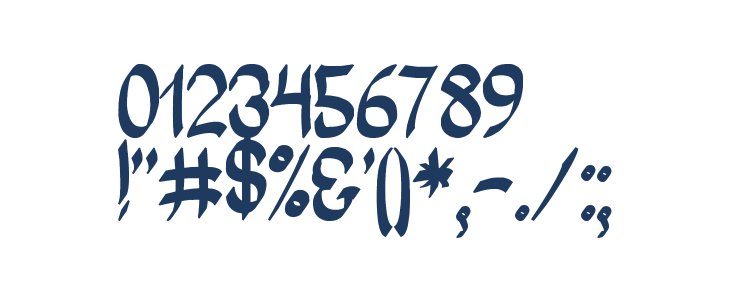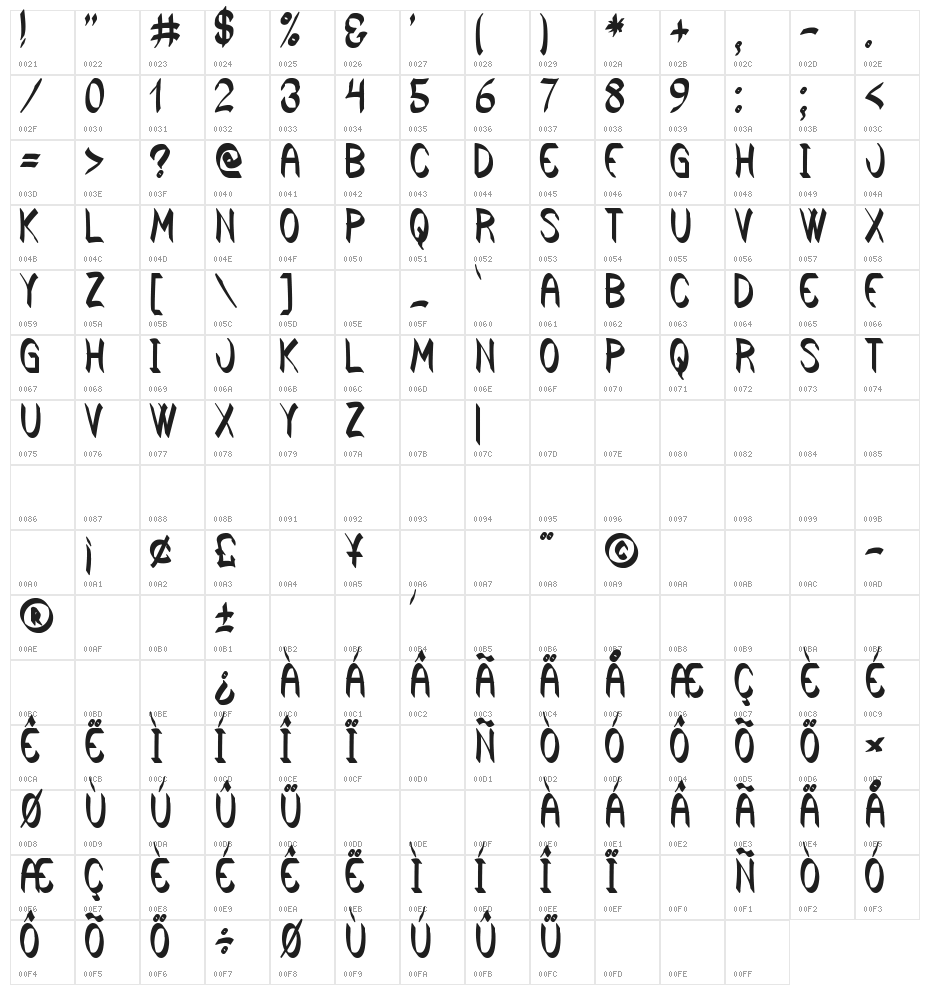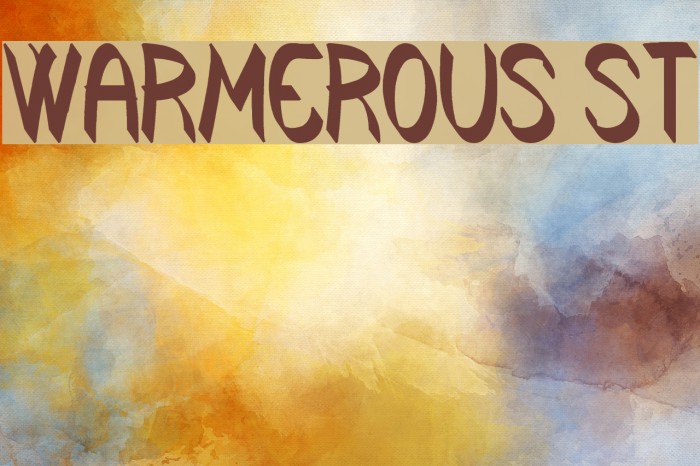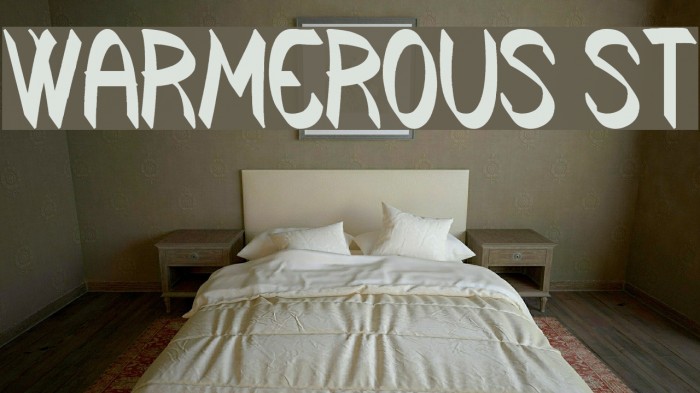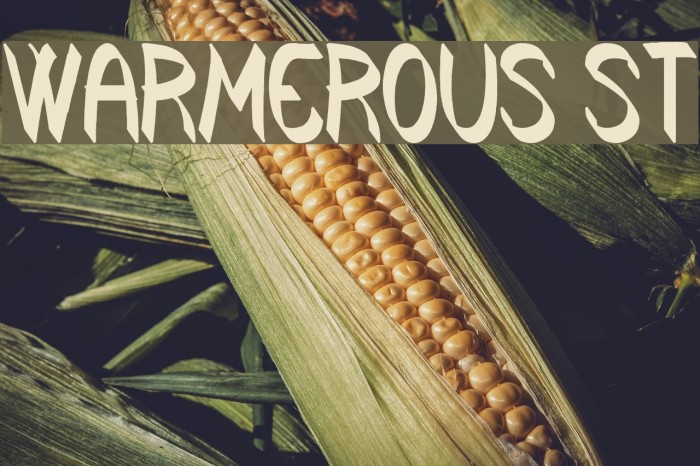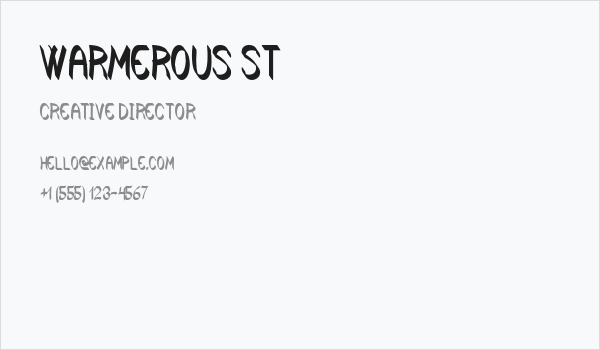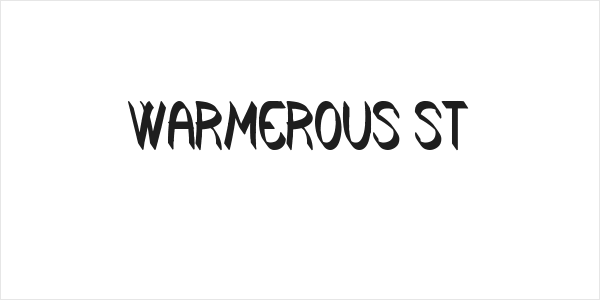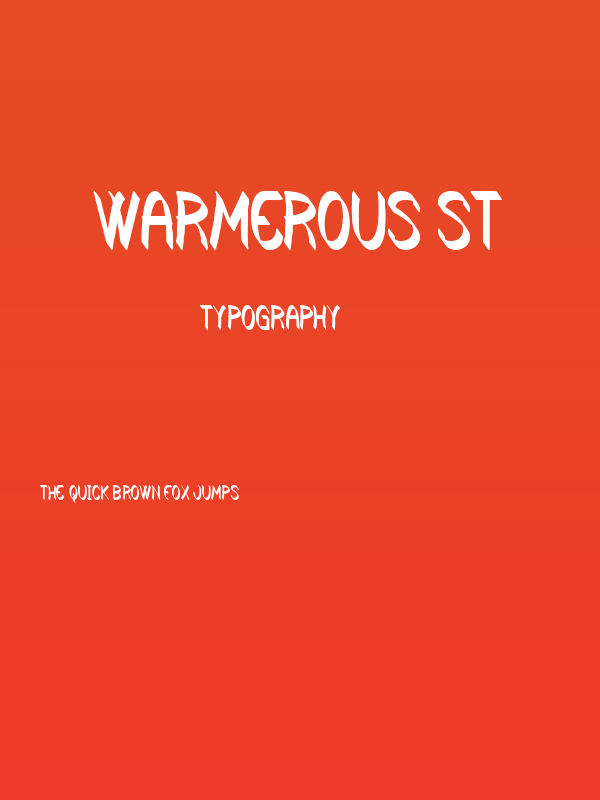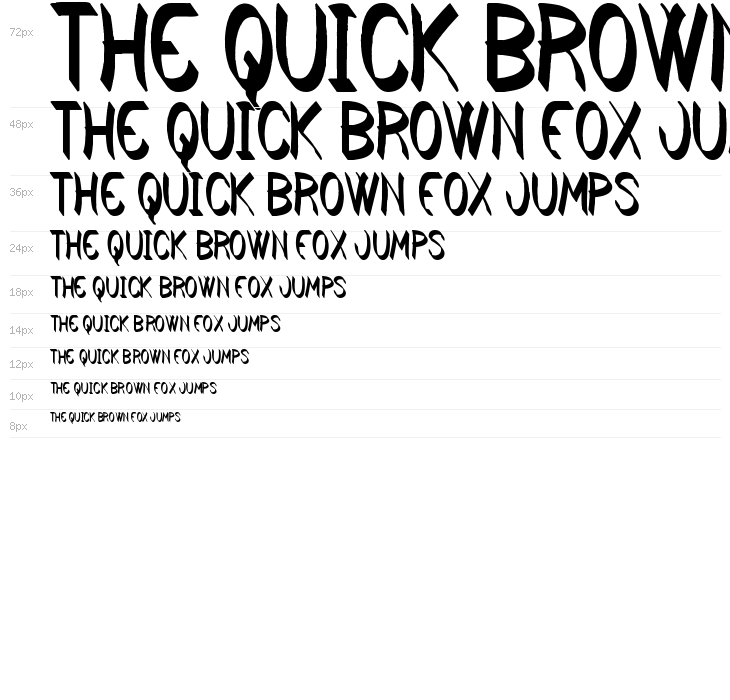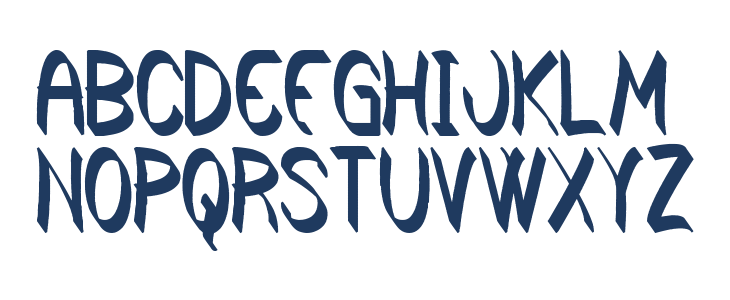
Warmerous St Font
Warmerous St Description
This font features a bold and dynamic style with a hand-drawn appearance. The characters are slightly irregular, giving them a unique and artistic flair. The strokes are thick and expressive, with a playful yet edgy vibe. The uppercase and lowercase letters maintain a consistent style, while the numerals and special characters complement the overall design. This font is perfect for projects that require a bold statement and a touch of creativity.
| Overall Style | Artistic and edgy |
| Proposed Projects | Ideal for posters, album covers, branding, and creative advertising. |